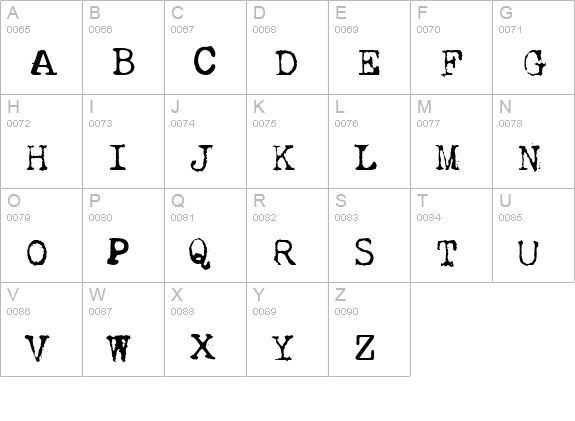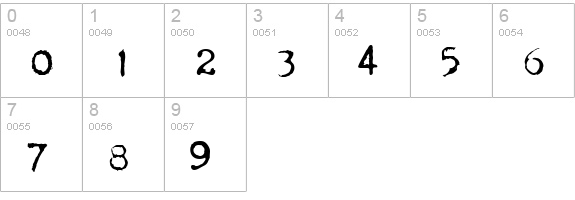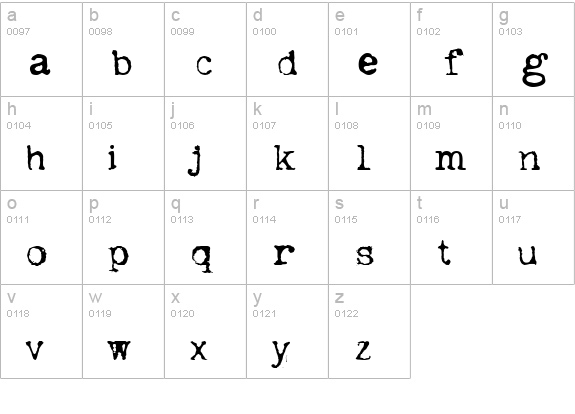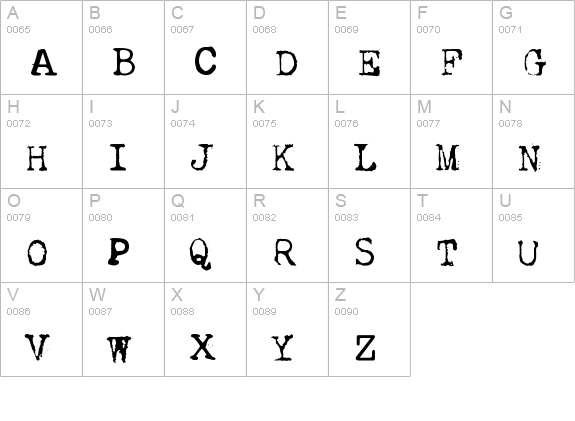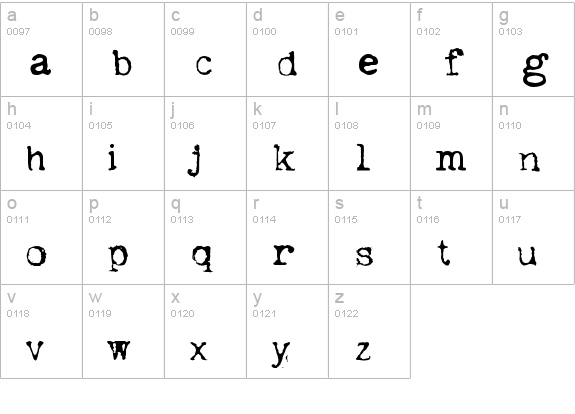
dislexiæ Font Details
The dislexiæ font is a unique and eye-catching typeface designed to mimic the experience of dyslexia, offering a fresh perspective on typography. Its unconventional letterforms and irregular spacing challenge traditional design norms, making it a bold choice for projects that aim to stand out. Despite its distinctive appearance, dislexiæ remains highly legible and versatile, suitable for a wide range of creative applications. This innovative font is available for free download at FontsMarket.com, making it accessible to designers and enthusiasts alike. Whether you're looking to add a touch of originality to your designs or simply experiment with a new style, dislexiæ offers endless possibilities. Embrace the unconventional with dislexiæ and let your creativity shine.